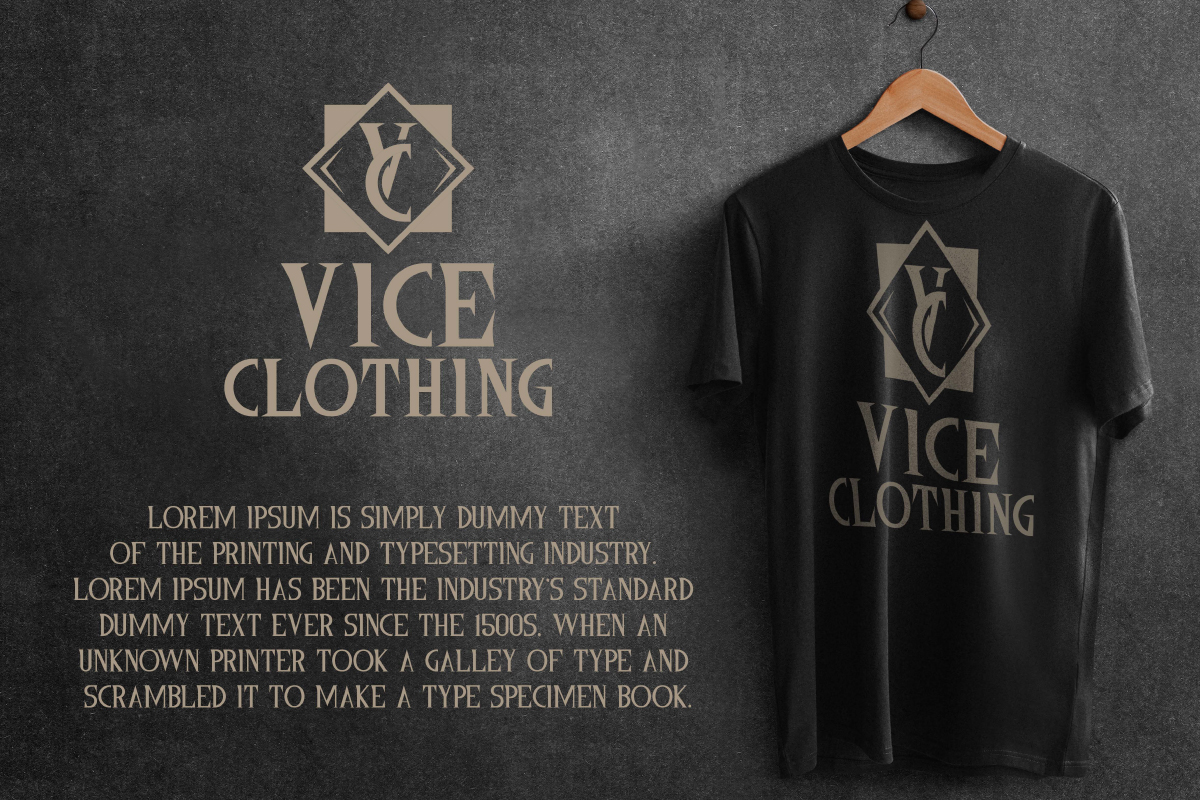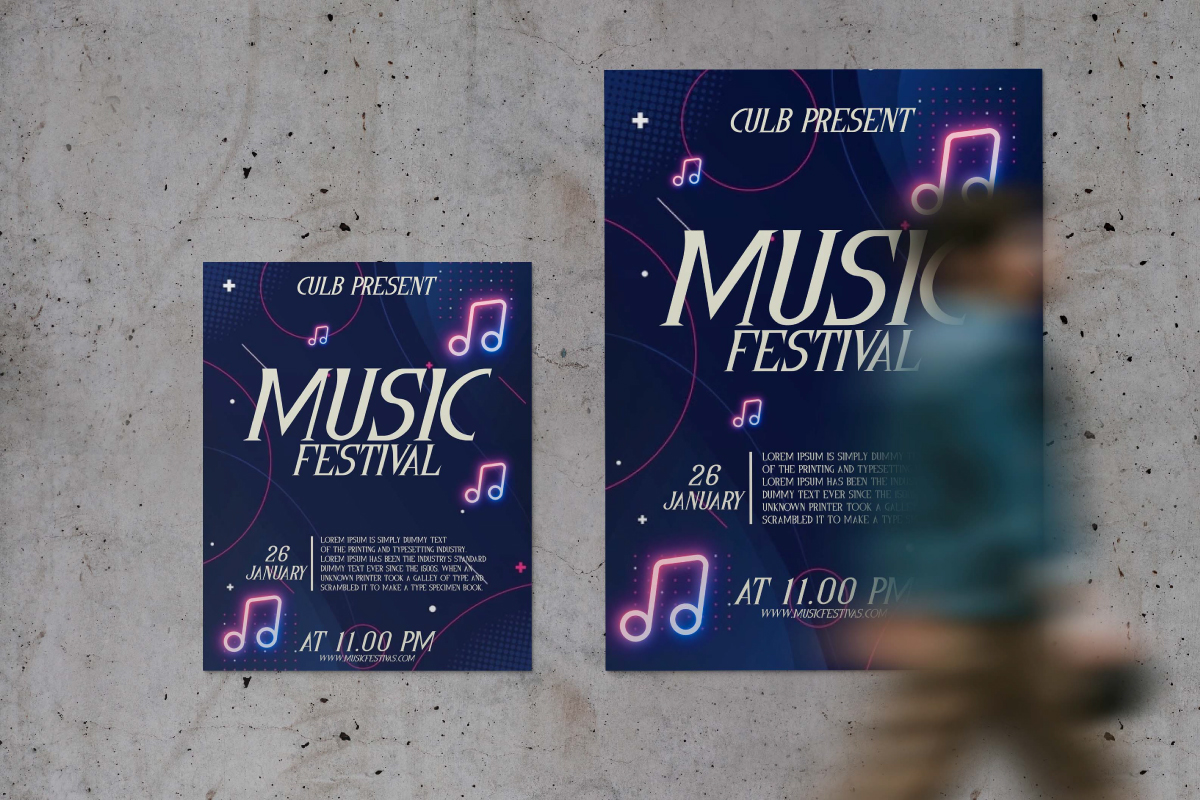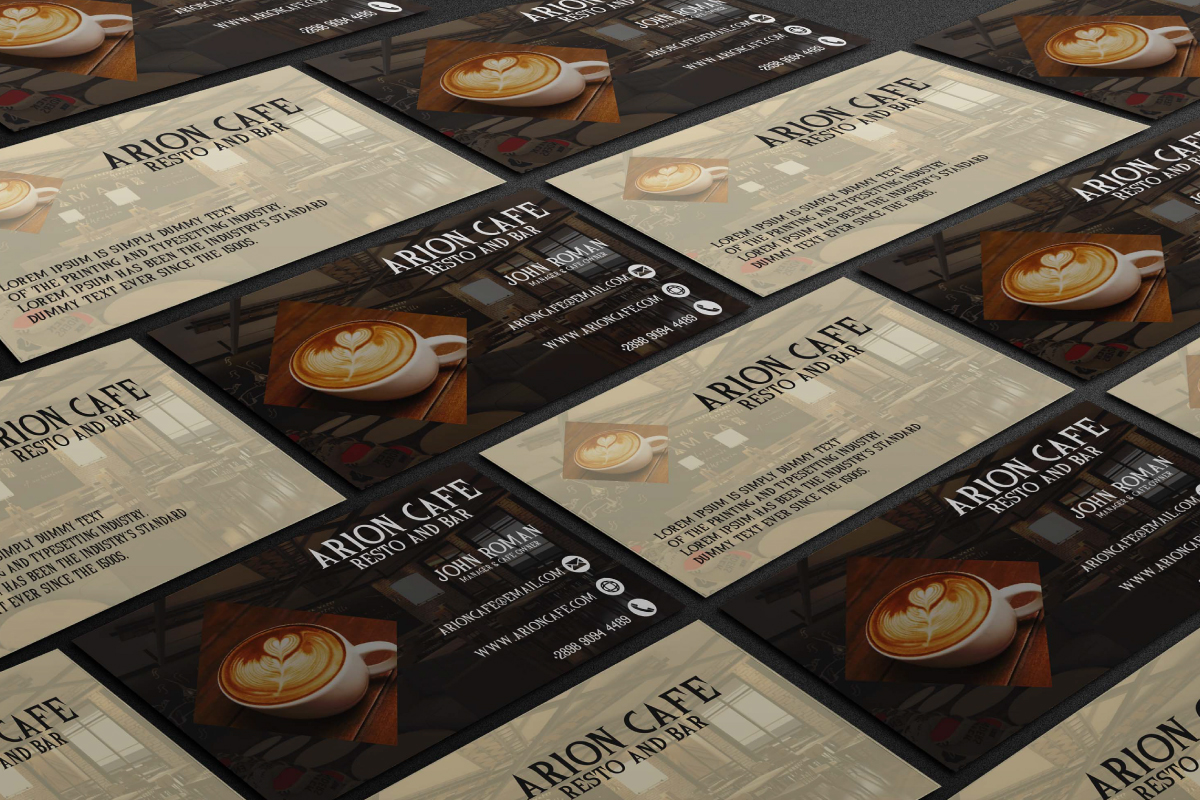
Morristown Serif Font
This is a modern and sharp serif font with a unique look that will make your designs stand out. This font is suitable for designs such as advertisement, business card, café, comic, company sign, concert, design packaging, fashion brand, fast food, heading, label, logo, movie especially horror and thriller genres, musician, poster, sportswear, t-shirt, and more.